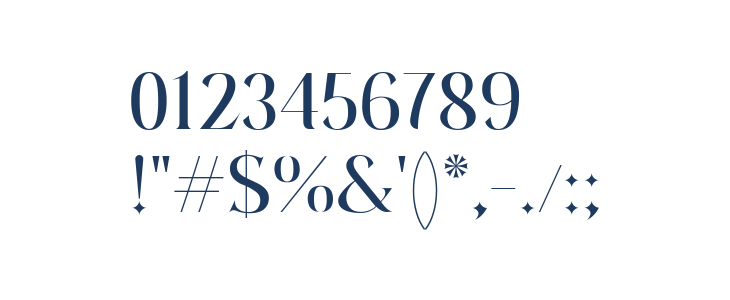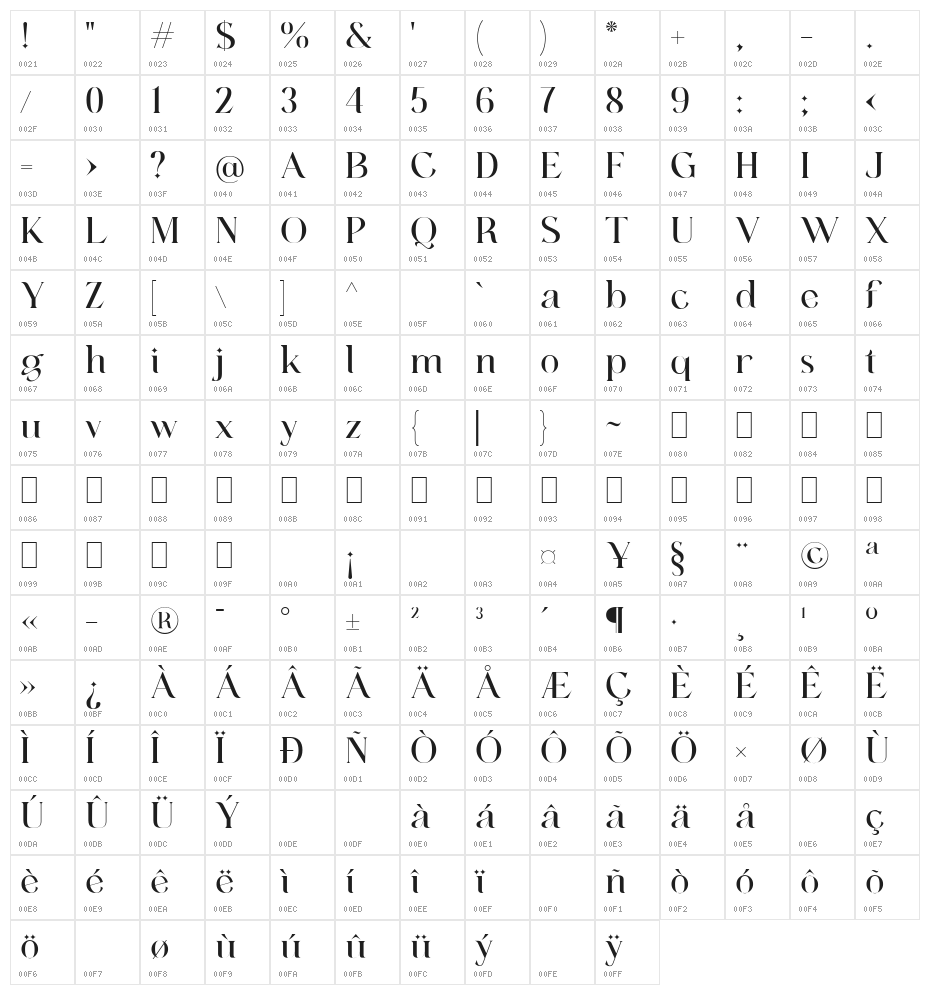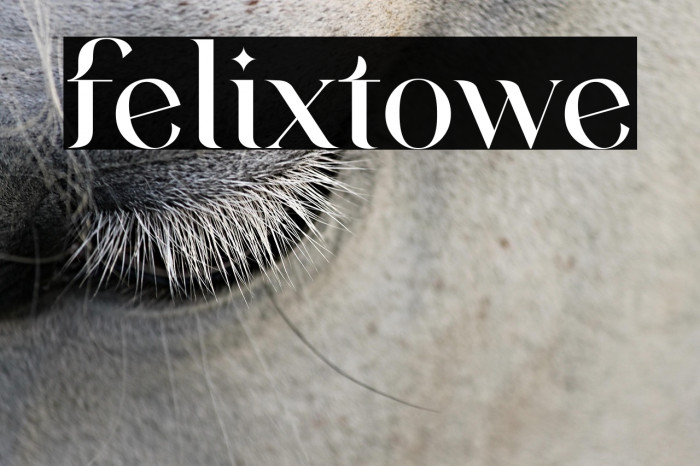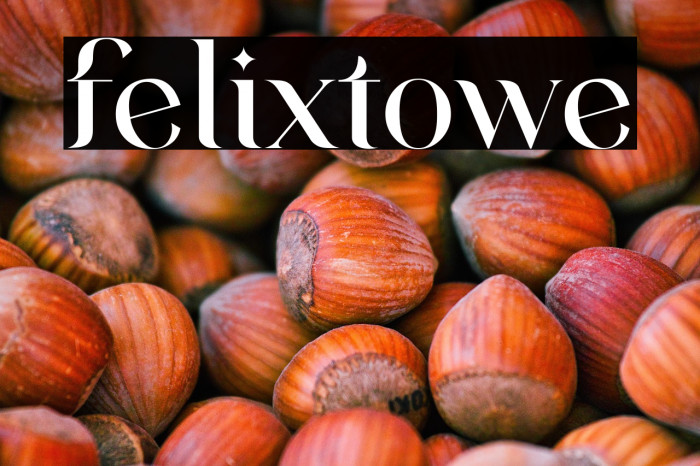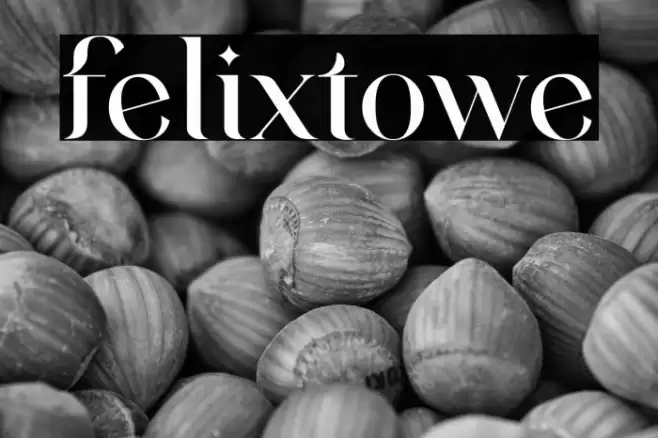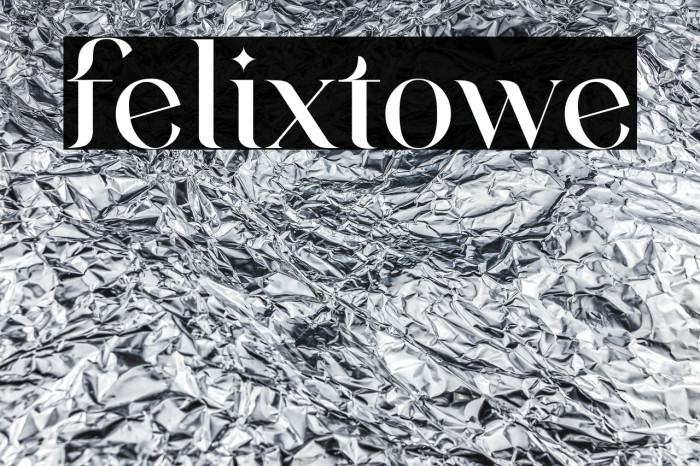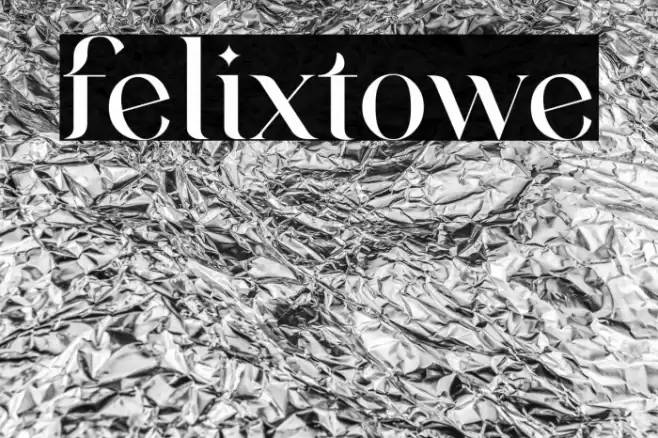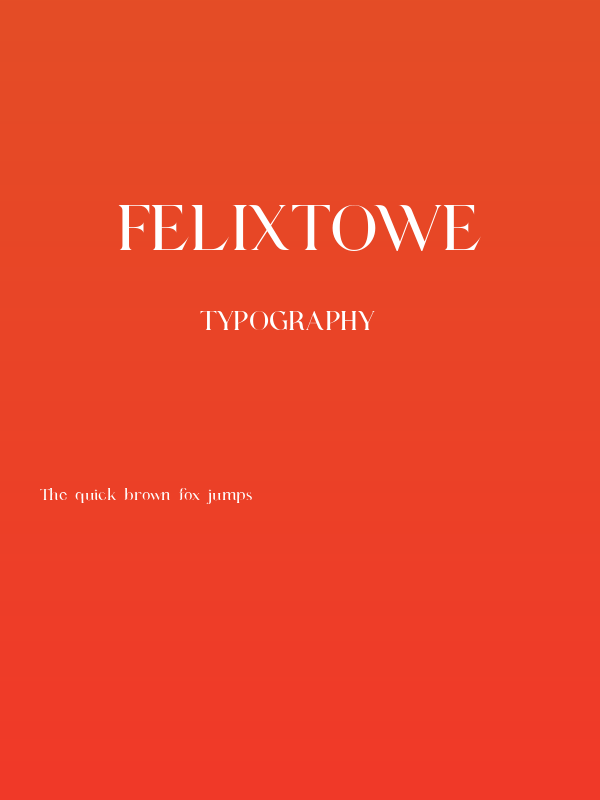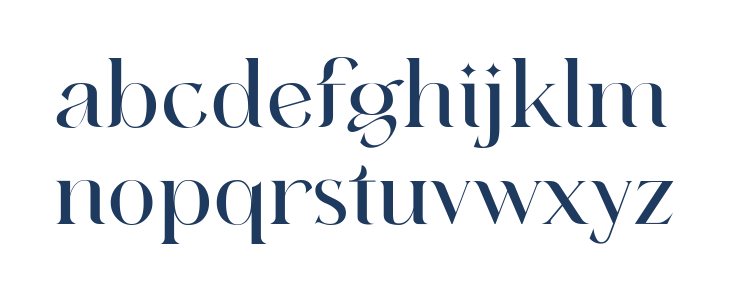
felixtowe Font
felixtowe Description
This font exhibits a sophisticated and elegant style, characterized by its high contrast between thick and thin strokes. The uppercase letters are tall and refined, with sharp serifs that add a touch of formality. The lowercase letters maintain a consistent style, with smooth curves and a graceful flow. The numerals are well-proportioned, complementing the overall aesthetic. Special characters are designed with the same attention to detail, ensuring a cohesive look across all glyphs. This font is suitable for projects that require a touch of elegance and sophistication.
Overall StyleElegant
Proposed ProjectsIdeal for luxury branding, editorial design, wedding invitations, and high-end product packaging.